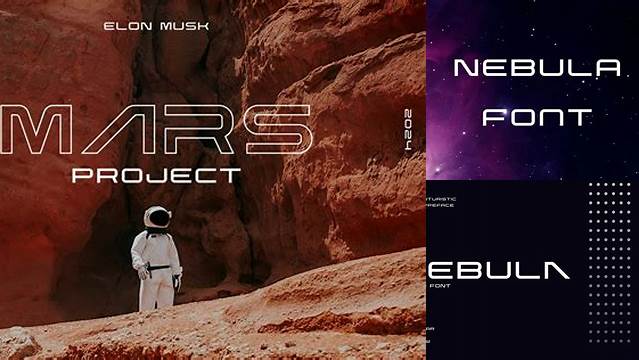
Are you looking to download nebula font family for free? Well, you've come to the right place! In this comprehensive guide, we'll dive into everything you need to know about the Nebula font family, including its features, uses, and where to download it without spending a dime. So, let's get started, guys!
What is the Nebula Font Family?
Let's kick things off by understanding what exactly the Nebula font family is. Nebula is a modern, versatile typeface known for its clean lines and geometric shapes. It's a sans-serif font, which means it doesn't have those little decorative strokes (serifs) at the ends of the letters, making it look sleek and contemporary. The Nebula font family typically includes various weights, such as light, regular, bold, and sometimes even italics, giving you plenty of options to play with in your designs. This adaptability makes it a favorite among designers for a wide range of projects, from website headers to print materials.
Key Characteristics of Nebula Font
Nebula font stands out due to its distinct characteristics that make it both appealing and functional. One of the key features is its legibility. The clean and straightforward design ensures that the text remains readable even at smaller sizes, which is crucial for body text in websites and documents. The geometric structure lends a modern and tech-forward feel, making it ideal for startups, tech companies, and innovative projects. Its versatility is another significant advantage. Nebula can be used in headlines, body text, logos, and branding materials, providing a cohesive look across different platforms. The availability of different weights—light, regular, bold—allows designers to create visual hierarchy and emphasize specific elements within their designs. This adaptability ensures that Nebula fits seamlessly into various design contexts, enhancing the overall aesthetic appeal and readability. Whether you're designing a website, creating a brochure, or developing a brand identity, Nebula’s unique blend of modernity and functionality makes it an excellent choice.
Nebula's Influence on Design Trends
The Nebula font family has significantly influenced contemporary design trends by embodying the principles of modern minimalism and geometric precision. Its adoption in various design projects highlights a broader shift towards cleaner, more straightforward typography that prioritizes readability and aesthetic appeal. The font’s sans-serif nature and geometric forms align perfectly with current trends that favor simplicity and clarity in visual communication. Nebula's versatile style has made it a popular choice for digital interfaces, branding materials, and print media, contributing to a cohesive and contemporary look across diverse platforms. Designers often use Nebula to evoke a sense of innovation and technological advancement, making it particularly suited for tech companies and startups. Its influence extends to the creation of logos and visual identities, where its clean lines and balanced structure help convey a brand's message with clarity and sophistication. As design trends continue to evolve, Nebula's enduring appeal underscores its role in shaping the visual landscape of modern design.
Why Choose Nebula Font?
So, why should you even bother to choose nebula font over the thousands of other fonts out there? Well, there are several compelling reasons. First off, it’s a very versatile font. Whether you're designing a sleek website, a professional-looking resume, or eye-catching marketing materials, Nebula can fit the bill. Its clean and modern appearance makes it suitable for a wide range of applications. Plus, it’s highly readable, which is crucial for ensuring your message gets across effectively. Nobody wants a font that looks pretty but is a pain to read, right? Another great thing about Nebula is its availability in multiple weights and styles. This gives you the flexibility to create visual hierarchy and add emphasis where needed. Bold for headlines, regular for body text – you name it!
Nebula's Impact on Readability
When it comes to readability, Nebula font truly shines. The impact of Nebula on readability stems from its thoughtfully designed structure, which ensures that the text is easy to read across various mediums and sizes. Its clean, sans-serif design means there are no distracting embellishments, allowing the reader to focus solely on the content. The consistent letterforms and ample spacing contribute to a comfortable reading experience, reducing eye strain and improving comprehension. Whether used for lengthy paragraphs or short headings, Nebula maintains clarity, making it an excellent choice for both print and digital applications. In web design, where users often scan content quickly, Nebula’s clear typography ensures that key information is easily digestible. Similarly, in print, its legibility makes it ideal for brochures, reports, and other documents where readability is paramount. By prioritizing clarity and ease of reading, Nebula helps to deliver your message effectively, ensuring that your audience stays engaged and informed. This makes it a valuable asset for any project where clear communication is essential.
Nebula for Branding and Marketing
For branding and marketing purposes, Nebula font offers a versatile and contemporary solution. Nebula's versatility allows it to adapt seamlessly to different brand identities, making it a valuable asset for businesses looking to create a cohesive and professional image. Its clean lines and modern aesthetic can convey a sense of innovation, trustworthiness, and sophistication, which are crucial elements in effective branding. Whether you're designing a logo, crafting marketing materials, or developing a website, Nebula can help you maintain a consistent visual identity across all platforms. Its legibility ensures that your message is clear and easily understood, which is essential for attracting and retaining customers. The availability of different weights and styles within the Nebula font family allows for creative flexibility, enabling you to highlight key information and create visual hierarchy. In the competitive world of marketing, a strong brand identity is key to success, and Nebula font can play a significant role in helping you achieve that goal by providing a modern, readable, and adaptable typeface that resonates with your target audience.
So, there you have it – everything you need to know to download nebula font family free and use it effectively in your designs! Nebula is a fantastic font choice for a wide range of projects, thanks to its modern aesthetic, versatility, and readability. Just remember to download from reputable sources, understand the licensing terms, and experiment with different weights and styles to get the most out of this awesome typeface. Happy designing, guys! I hope this guide has been helpful, and you’re now ready to unleash the power of Nebula in your next project.